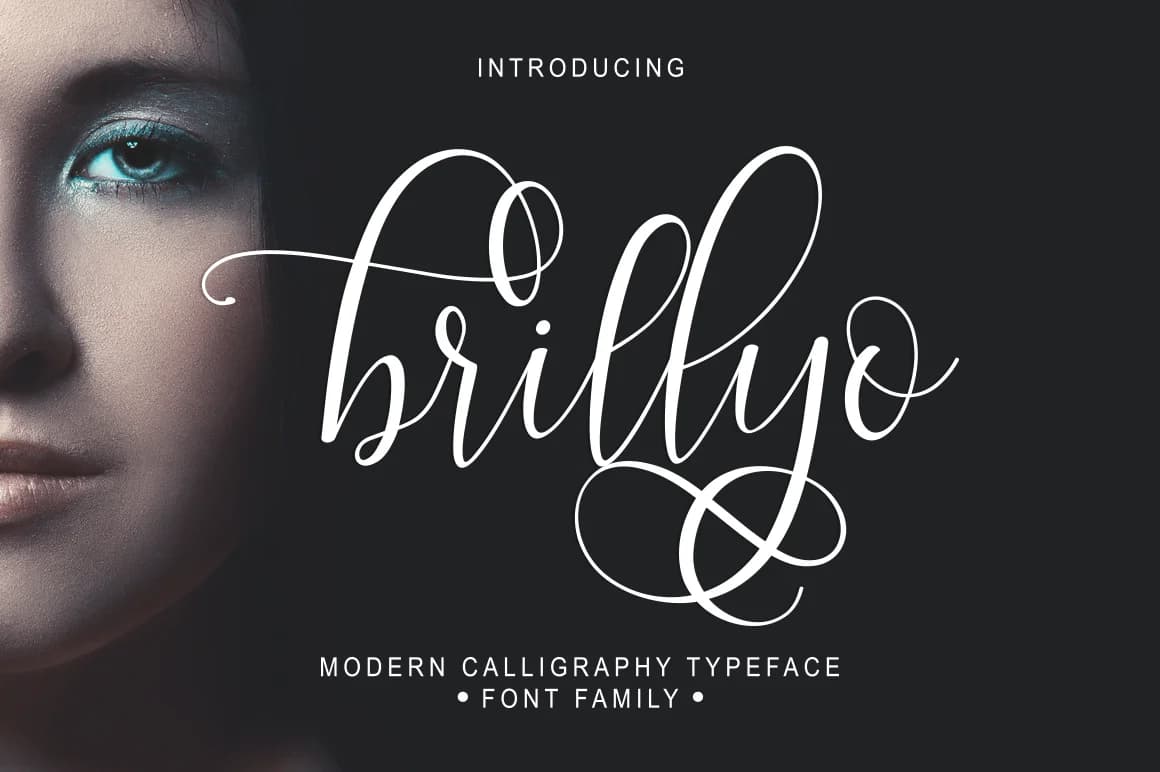
Brillyo Font by masinong is a contemporary handwritten script that combines flowing calligraphic letterforms with modern sensibility. This elegant typeface brings authentic hand-crafted character to creative projects that demand an organic, personal touch. The font is particularly well-suited for wedding invitation suites, artisanal product labels, boutique coffee shop branding, and personalized greeting card designs where that human element makes all the difference.
The versatility of Brillyo extends across both digital and print applications without losing its distinctive personality. Whether you're designing luxury packaging for handmade goods, creating event programs with individual charm, developing visual identity for a small creative business, or hand-lettering social media graphics, this script delivers sophisticated character without feeling overwrought or difficult to read. The carefully balanced letterforms maintain excellent legibility even at smaller sizes while preserving the distinctive handwritten quality that makes the font special.
Beyond its practical utility, Brillyo offers designers a reliable tool for adding warmth and personality to their work. The smooth, flowing strokes lend themselves naturally to both elegant and creative applications, making it an excellent choice for anyone seeking to move beyond overused, impersonal typefaces in their design projects.
Brillyo Font is a script font that shines as a display or heading face. Pair it with a clean sans-serif or serif font for body text β the contrast creates a clear hierarchy while the two styles stay balanced and easy to read.